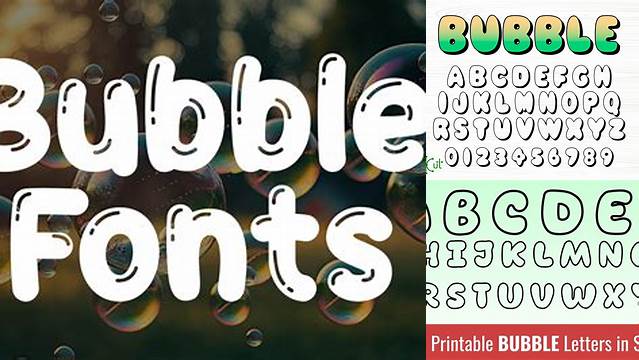
Create Stunning Bubble Letter Fonts Online
Hey everyone! Ready to dive into the super fun world of bubble letter fonts? You know, those playful, eye-catching fonts that scream fun and creativity? Whether you're a seasoned designer, a crafting enthusiast, or just someone who loves to add a little flair to their projects, you're in the right place. We're going to explore everything you need to know about bubble letter fonts, including how to create them easily using a fantastic bubble letter fonts generator. Get ready to unleash your inner artist and make your designs pop!
H2: What Exactly are Bubble Letter Fonts?
Alright, first things first: What exactly are bubble letter fonts? Think of them as letters that look like they're made of, well, bubbles! They're rounded, often thick, and always cheerful. Imagine the kind of letters you'd see on a birthday card, a playful poster, or maybe even on your favorite cartoon show. That's the vibe! These fonts are all about creating a sense of fun, approachability, and a touch of whimsy. They're super versatile and can be used in a ton of different ways. Bubble letters are perfect for kids' projects, scrapbooking, creating eye-catching logos, or even adding a playful touch to your social media posts. The defining feature of these fonts is the rounded appearance, where the letterforms are essentially composed of interconnected rounded shapes, creating the illusion of inflated bubbles. This aesthetic makes them visually engaging and highly readable, even from a distance. Because of their simple, bold nature, bubble letters are often used in designs aimed at younger audiences or those looking for a lighthearted feel. You'll commonly spot these fonts in children's books, party invitations, and promotional materials for businesses targeting families or individuals. Creating bubble letter fonts from scratch can be time-consuming, as you'd have to design each letter individually, ensuring consistency in the curves and spacing. Using a bubble letter fonts generator simplifies this process, allowing you to quickly transform text into a unique, bubbly style. The beauty of bubble fonts also lies in their adaptability. They can be customized with various colors, gradients, and effects to match your design needs. For instance, you can add shadows to give the letters a three-dimensional look or fill them with textures to add depth and character. Many designers also incorporate bubble letters into logos, headlines, and other branding elements to convey a sense of fun, friendliness, and approachability. The use of bubble letters helps to create a positive and memorable brand identity, making them a popular choice for businesses that want to connect with their audience on a personal level. Another exciting aspect of using bubble letters is the potential for creative experimentation. Try combining different styles of bubble letters with other design elements to create unique and captivating designs. Experiment with layering, blending, and other visual effects to bring your designs to life. The possibilities are endless when using a bubble letter fonts generator to get creative with typography.
H3: The History and Evolution of Bubble Letters
So, where did these awesome bubble letter fonts come from? Well, their origins are a bit less defined than, say, a specific calligraphic style, but they really popped up in the late 20th century. Think of the vibrant, energetic art and design styles that were popular in the 80s and 90s – that's the era that really embraced them! Graffiti artists were among the first to widely adopt the style, using it to create bold, eye-catching murals and tags. They provided an exciting way to make their art stand out. This was before the days of easy digital design tools. The style was then copied by others, including designers in many fields of artistic endeavor, from advertising to animation. Over time, bubble letters evolved. There are now countless variations and styles. Bubble letter fonts have been adapted and modernized. They've incorporated shadows, outlines, and textures. And now, thanks to the digital age, they're more accessible than ever, with bubble letter fonts generators making it easy for anyone to create them. Initially, artists created bubble letters by hand, meticulously drawing each letter and ensuring the rounded shapes and consistent thickness. They used various tools, such as markers, paintbrushes, and stencils, to achieve the desired effect. The meticulous nature of this process required significant artistic skill and patience. But the efforts proved worthwhile, as bubble letters quickly became a symbol of creativity and a recognizable form of art. As technology progressed, the methods of producing bubble letters gradually evolved. The introduction of digital design tools significantly sped up the process, making it easier to create and modify bubble letters. Today, designers use specialized software to create custom bubble letter fonts and add unique effects such as gradients, shadows, and outlines, significantly expanding the possibilities for artistic expression. The rise of the internet and social media further popularized bubble letters. They're now used in various applications. Social media posts, digital artwork, website designs, and even marketing campaigns benefit from the cheerful aesthetic of bubble letters. The accessibility of bubble letter fonts generators and other design tools allows anyone, regardless of their artistic background, to incorporate bubble letters into their projects.
H2: Why Use a Bubble Letter Fonts Generator?
Why bother with a bubble letter fonts generator, you ask? Well, let me tell you! Because it makes creating those cool bubble letter fonts super easy and fast! Instead of painstakingly drawing each letter by hand (which, let's be honest, can be a real time-sink), a generator does the work for you. This means you can create a design quickly without the need for any artistic expertise. The best part? You can experiment with different styles and sizes without the hassle. It's perfect for beginners and seasoned designers alike. If you are looking for a quick and easy way to create visually appealing designs, then a bubble letter fonts generator is perfect for you. They save time, offer customization options, and provide access to a wide array of font styles. This makes them an ideal tool for anyone looking to create unique and attention-grabbing visuals. Also, using a bubble letter fonts generator means you can focus on the creative aspects of your project, like choosing colors, layouts, and overall design. This tool allows you to focus on the bigger picture and ensures a consistent, professional look every time.
H3: Time-Saving Benefits
One of the biggest advantages of using a bubble letter fonts generator is the incredible time savings. Hand-drawing bubble letters can be a time-consuming process. You need to ensure each letter is perfectly rounded, consistent in thickness, and aesthetically pleasing. This can take hours, especially if you're designing an entire alphabet or a large headline. A bubble letter fonts generator does all the hard work for you in seconds! You can input your text and have it transformed into bubble letters instantly. This means more time to focus on other aspects of your design, such as layout, color palettes, and overall visual aesthetics. You can also try out different font styles, sizes, and effects without having to redraw each letter. This allows for faster iteration and more creative exploration. In addition to time savings, a bubble letter fonts generator also ensures consistency across your design. When you manually create bubble letters, slight variations in thickness, shape, or spacing can occur, affecting the overall look of your project. With a generator, all letters are automatically produced with uniform characteristics, resulting in a polished and professional appearance. This consistent look is especially important in branding materials, where uniformity is essential for establishing a recognizable visual identity. The time saved can be utilized to further refine the project, to explore different design directions, or to accommodate additional tasks. Whether you are working on a school project, a marketing campaign, or a personal crafting endeavor, a bubble letter fonts generator will accelerate your design process and help you achieve your creative goals.
H2: Features to Look for in a Bubble Letter Fonts Generator
When picking a bubble letter fonts generator, there are some key features to keep an eye out for. You want something that's easy to use, right? Look for a generator with a user-friendly interface that's simple to navigate. You should be able to type your text and see the bubble letter fonts instantly. Customization options are also important. Can you change the size, color, and style of the letters? The best generators offer a range of customization options. This means you can tailor the fonts to match your specific project needs. Also, make sure the generator allows you to download your creations in a format you can use, like PNG or SVG. That way, you can easily integrate your bubble letter fonts into your designs. Lastly, consider the quality of the output. Make sure the generated fonts look clean and professional. This helps avoid pixelated or distorted letters. Keep these factors in mind, and you'll find a bubble letter fonts generator that's perfect for you.
H3: User-Friendly Interface and Ease of Use
A top-notch bubble letter fonts generator should be incredibly easy to use, and its interface must be user-friendly. The interface should be intuitive, allowing you to quickly type in your text and instantly see it transformed into cool bubble letter fonts. The design should be clean, uncluttered, and easy to navigate. This will allow you to focus on creativity rather than struggling with complex software controls. Look for generators that provide clear instructions and visual cues to guide you through the process. The process should be straightforward: type, customize, and download. The best interfaces offer drag-and-drop functionality. Also, it must have the capability to apply different effects with a few simple clicks. A well-designed interface saves time and allows users of all skill levels to create high-quality designs. The ease of use is critical for both beginners and experienced designers. Beginners can experiment with different styles without feeling overwhelmed. Experienced designers can create stunning designs faster, integrating the bubble letter fonts into their projects. The key is to streamline the design process, making it fun and accessible. The ideal interface minimizes the learning curve, allowing you to focus on unleashing your creativity and creating stunning visuals. Check for tooltips and pop-up guides to help explain different features and customization options. A seamless and intuitive user experience is essential for enjoying the creative process.
H2: Customization Options Available
One of the coolest things about using a bubble letter fonts generator is the customization options. You want to be able to make those bubble letter fonts your own, right? Look for a generator that lets you change the font size, the thickness of the bubbles, and the colors. Some generators even let you add effects like outlines, shadows, and gradients to make your letters really pop! The more customization options, the more creative freedom you have. This will make your designs unique. Check if you can adjust the spacing between letters and words. This is crucial for achieving the desired visual balance. Also, see if you can rotate or skew the letters to add a dynamic touch. The best generators provide a wide range of features to ensure your creative vision comes to life. Customization goes beyond aesthetics. Consider the ability to download the fonts in multiple file formats like PNG, JPG, or SVG. This versatility ensures compatibility with various design software and applications. Also, explore generators that offer a preview option, allowing you to see how your customized fonts will look on different backgrounds or mock-ups.
H3: Font Style and Appearance Customization
When selecting a bubble letter fonts generator, you want flexibility over the fonts' styles and appearance. The best generators provide a wide array of customization options to make your designs unique. You should be able to adjust the thickness of the bubble letters, making them bold or delicate to suit your project's needs. The capability to change the roundness and softness of the edges of the letters is important. This allows you to refine the overall look and feel of the fonts. Customizing the outline of the letters is a great feature. Some generators allow you to add outlines of different colors or thicknesses to make the letters stand out. You can experiment with shadows, adding depth and dimension to your fonts. Customizing the letters' appearance ensures they match your design aesthetic. This allows you to create fonts that perfectly align with your brand. Look for generators that offer color customization options, allowing you to change the color of the letters, outlines, and shadows. This will enable you to create visually cohesive designs. Font style and appearance customization features are essential for creating unique and effective designs. This makes the bubble letter fonts a perfect fit for your projects.
H2: Tips for Using Bubble Letter Fonts Effectively
Alright, now you've got your bubble letter fonts ready to go! But how do you use them effectively? First, consider the context. Bubble letter fonts are great for fun, informal projects, but maybe not so much for a serious business proposal. Next, think about readability. Make sure your fonts are large enough and easy to read, especially if you're using them in a headline or title. Also, use color wisely. Choose colors that complement each other and that fit your project's overall theme. Don't go overboard! Too much color or too many effects can make your fonts look messy. Keep it simple and balanced. Also, consider the size of your text. Bubble letter fonts can be a bit bulky, so they might not work well for long blocks of text. Use them for headings, titles, or short phrases. Finally, experiment! Try different combinations of colors, sizes, and effects. Play around until you find the perfect look for your project.
H3: Best Practices for Readability and Design
To ensure the effectiveness of your designs, here are some best practices for bubble letter fonts. Readability is key. Make sure the font size is appropriate for the context. Choose a size that is easily readable from a distance. The height of the letters is essential. Avoid making the letters too tall or too short, as this can affect their readability. Spacing between letters and words must also be considered. Ensuring the letters are not crowded together is important, as it will prevent confusion. Line spacing is essential when using bubble letters in multiple lines. The spacing should be wide enough to prevent the lines from blending together. The color contrast is also vital. Ensure a high contrast between the font and the background. This prevents readability problems. You can achieve this by using contrasting colors. Avoid colors with similar values. Font choice is essential. Choose a font that is clear and easy to understand. Bubble letters come in various styles. Make sure the style complements your design. The design must consider the overall layout. Use bubble letters strategically. Avoid using them for extensive text. Headings and titles are ideal for these fonts. Avoid overusing bubble letters. Too many elements will make your design cluttered. By following these best practices, you can ensure that your bubble letters will be effective, readable, and aesthetically pleasing.
H2: Where to Use Bubble Letter Fonts
So, where can you actually use these fun bubble letter fonts? The possibilities are pretty much endless! They're perfect for kids' birthday invitations, school projects, and party decorations. Think of posters, flyers, or even banners for your kids' room! Bubble letter fonts work great for social media graphics, like Instagram posts and stories, where you want to grab attention. You can also use them in scrapbooking, creating personalized cards, or designing fun logos. Really, anywhere you want to inject some personality and playfulness, bubble letter fonts are a great choice. They're also really popular for creating custom t-shirts, mugs, or other personalized gifts. The versatility makes them perfect for both personal projects and professional designs.
H3: Applications in Personal and Professional Projects
Bubble letter fonts are versatile and useful. They are suitable for personal and professional projects. For personal use, consider creating custom birthday cards, invitations, and personalized gifts. Bubble letters add a fun and playful touch to any celebration. You can also use them to create eye-catching scrapbooks. These fonts enhance the visual appeal of your memories. For professional projects, these fonts can be valuable for branding and marketing materials. You can use bubble letter fonts to create logos, website banners, social media graphics, and promotional flyers. Bubble letters can communicate a sense of friendliness, approachability, and creativity, which is ideal for brands aiming to connect with younger audiences or those with a playful identity. You can use these fonts to design educational resources. These materials can grab the attention of students and make learning more engaging. Whether creating presentations or designing posters, bubble letters can make educational content more visually appealing. Using the bubble letter fonts can help you achieve your desired goals. You can also consider these fonts when creating social media content. They are perfect for creating posts and stories that stand out. They enhance brand visibility and engagement. Whether you're designing a marketing campaign or planning a personal project, these fonts are a great choice.
H2: Popular Bubble Letter Font Generators and Tools
Alright, let's get down to the good stuff! There are tons of great bubble letter fonts generators out there, but here are a few popular choices: [Insert some actual tools and websites here]. These generators often have user-friendly interfaces, a wide variety of customization options, and allow you to download your creations in various formats. It's worth checking out a few different ones to see which you prefer! Don't forget to look for generators that offer features like text effects, outlines, and shadow options to help you create unique and eye-catching designs. You can also find a range of free and paid options. Some generators may offer a wider range of features and customization options, while others may be simpler and more straightforward. Before selecting a tool, it is important to consider your specific needs and preferences.
H3: Overview of Top Online Generators
There are many online bubble letter fonts generators available. Each one provides various features. To get you started, here's an overview of some top online generators: [Provide brief overviews and key features of several generators, including their strengths and weaknesses, and what makes each one stand out]. Consider ease of use, customization options, download formats, and user reviews when selecting a generator. Look at user reviews and ratings. This will help you assess the quality of the output. When comparing generators, think about the available customization options. Check if the generator offers text effects, outlines, and shadow options. The quality of the generated fonts is crucial. Choose a generator that produces clean and professional-looking fonts. Also, check if the generator lets you download your creations in the format you need. Some offer PNG, JPG, or SVG options. Some tools offer advanced features and extensive customization capabilities. You can use these tools to fine-tune your designs. By exploring these generators, you will discover the perfect tool. The perfect tool will fit your needs and help you create stunning designs. Whether you're a beginner or an experienced designer, these generators offer many resources to bring your creative visions to life.
H2: Getting Creative with Bubble Letter Fonts: Design Ideas
Ready to get those creative juices flowing? Here are some design ideas to get you started with bubble letter fonts. Create a birthday invitation! Design a fun poster for your kids' room! Make a custom t-shirt with a catchy phrase! Use them for social media posts. You can also experiment with combining them with other design elements, like illustrations or backgrounds. Don't be afraid to try something new! You can play with different color combinations, layer the fonts, or add shadows to create a 3D effect. You can use textures or gradients to add visual interest. The only limit is your imagination. Don't be afraid to experiment and have fun! With a bubble letter fonts generator, your creative possibilities are endless.
H3: Innovative Design Techniques and Combinations
Want to take your designs to the next level with bubble letter fonts? Here are some innovative design techniques and combinations: Combine different styles of bubble letters. Mix thick, bold fonts with more delicate, thin ones to create contrast. Add a touch of playfulness and visual interest. Incorporate other fonts to complement your bubble letter fonts. Consider using a simple sans-serif font for supporting text to ensure readability. Experiment with layering techniques. Place your bubble letter fonts over images, textures, or solid color backgrounds. This creates depth and visual complexity. Use drop shadows and outlines. These elements will help your bubble letters pop and stand out. Apply gradients and textures. Add a sense of depth and dimension. Experiment with blending modes. Blend your bubble letters with backgrounds or other design elements. The blend mode gives unique effects and visual interest. Combine bubble letters with illustrations and graphics. This will help you create visually rich designs. Consider using icons, illustrations, and other graphic elements to enhance your message. You can create a unique and engaging visual experience by experimenting with these techniques. This lets you create designs that stand out and capture attention.
H2: Troubleshooting Common Issues with Bubble Letter Fonts
Running into any snags while using your bubble letter fonts? Don't worry, it happens! One common issue is readability. If your fonts are too small, or the colors don't contrast well, they can be hard to read. Another issue is distorted fonts. Some generators might not produce the best results. Always double-check the quality of your fonts before using them. If you're having trouble with the generator itself, check the user manual or online tutorials. Sometimes, there might be a glitch, or you might need to clear your cache and cookies. Troubleshooting can save you time and frustration. If you're still having problems, reach out to the generator's customer support. They are usually happy to help. When using a bubble letter fonts generator, keep the following tips in mind to prevent problems.
H3: Resolving Readability and Quality Issues
Encountering readability and quality issues when working with bubble letter fonts? Don't worry! Here's how to solve them: For readability, make sure the font size is appropriate for the context. Use a size that is easy to read from a distance. The contrast between the font and the background is essential. This prevents readability problems. Ensure a high contrast by using contrasting colors. Avoid colors with similar values. To address quality issues, check the generated font files. Make sure the fonts look clean and professional. Sometimes, fonts can appear pixelated or distorted. Ensure you have a good internet connection to prevent disruptions during the generating process. Check the format of your downloaded files. The format can affect the quality and appearance of your bubble letter fonts. By following these tips, you can ensure that your fonts are readable and of high quality.
H2: Bubble Letter Fonts and Copyright: What You Need to Know
Alright, before you go wild creating, it's super important to understand copyright. Most bubble letter fonts are either free for personal use or require a license for commercial use. Always check the license agreement before using a font in a commercial project. Make sure you understand the terms of use. This will prevent any legal issues. Some fonts are completely free to use, while others may require you to purchase a license or give credit to the designer. Check the website or platform where you found the generator. They usually have clear information about the font's usage rights. If you're unsure, it's always best to err on the side of caution and seek clarification or legal advice. This is a good way to avoid copyright infringements. This will help you use the fonts legally. Respecting the rights of font designers is essential. Protect yourself from potential legal issues. This is crucial, especially for businesses and creators who use fonts in their products or services. Always check the licensing terms. It is important for both personal and commercial use.
H3: Understanding Licensing and Usage Rights
Understanding the licensing and usage rights of bubble letter fonts is essential. Bubble letters are protected by copyright. Always review the license agreement of any bubble letter fonts generator or font before using it. This agreement will explain how the fonts can be used. Always check the font's intended use. Some fonts are free for personal use but require a license for commercial projects. Others may be free or require you to give credit to the designer. The terms of each license vary. Some licenses might restrict the types of projects where the font can be used. For instance, some may prohibit use in logos or other branding materials. Other licenses may limit the number of uses or the duration of use. Reading the license agreement carefully is critical. Make sure you understand all terms before using the font. If you're unsure about the license terms, seek clarification from the font designer or the provider. This will help you avoid potential copyright issues. Respecting these rights helps protect the work of font designers.
H2: Designing for Different Platforms with Bubble Letter Fonts
When you're using bubble letter fonts, think about where your design will be seen. For social media, keep the text large and legible, because people are often scrolling on their phones. Use colors that pop and grab attention, and make sure your design is eye-catching, even when it's small. For print projects like posters or flyers, you have more flexibility with size and detail. But still, ensure your fonts are easy to read from a distance. Different platforms have different requirements. You can adapt your designs to suit each platform. This ensures your message is clear and visually appealing. Using the right approach maximizes the impact of your bubble letter fonts on different platforms. This helps to engage your audience.
H3: Optimizing Bubble Letter Fonts for Social Media and Print
When using bubble letter fonts, it's important to optimize your designs for different platforms. Social media and print projects have different requirements. For Social Media, ensure the text is large and legible, as people often view content on their phones. The contrast must also be strong to capture attention. Use colors that pop, and ensure your design is eye-catching. Use clear, high-resolution images. The design needs to be clear, even when viewed on a small screen. For Print Projects, you have more flexibility. The size and detail are less of a concern. Still, ensure the font is readable from a distance. Choose high-resolution images. High-quality images will maintain their clarity and detail. Ensure the design is visually appealing. Different platforms have different requirements. To ensure your bubble letter fonts are effective, you must adapt your designs to suit each platform. This ensures your message is clear and visually appealing. Following these tips helps you create designs that perform well across various platforms.
H2: The Future of Bubble Letter Fonts and Design Trends
What's next for bubble letter fonts? Well, they're not going anywhere anytime soon! Expect to see them evolve and adapt to new design trends. We might see even more creative variations, with new styles, textures, and effects. As technology advances, expect the generators to get more sophisticated. They will provide more customization options. They will also make them even easier to use. The future of design is all about creativity. You should experiment with new ideas. These trends are sure to change the world of bubble letter fonts. With the rise of digital art and design, expect to see many more innovative uses. This can happen as designers continue to push the boundaries of what's possible. Keep an eye out for new technologies. They will help in generating creative designs with bubble letter fonts.
H3: Predicting the Evolution of Bubble Letter Styles
Predicting the future evolution of bubble letter styles involves analyzing current design trends. Also, technological advancements. Expect continuous innovation. Designers will be inspired to explore new variations of this iconic font style. The blending of traditional and digital design methods is likely to influence the future of bubble letter fonts. Expect to see styles that integrate handmade elements. The style includes textures, brushstrokes, and imperfections. These textures will add warmth and personality. They also make designs more attractive. As technology advances, bubble letter fonts are becoming more interactive. You will see more dynamic designs that respond to user interactions. Generative design techniques may become more prominent, allowing designers to create bubble letters automatically. This will give you unique and personalized designs. The growing emphasis on accessibility will also influence the evolution of bubble letter fonts. Designers will focus on creating readable and inclusive designs. This ensures that the bubble letters are accessible to everyone. The evolution of bubble letter fonts is driven by creativity. Designers will keep testing boundaries. The designs will be innovative, functional, and beautiful.
H2: Conclusion: Unleash Your Creativity with Bubble Letter Fonts
So, there you have it! You're now armed with the knowledge and tools to create stunning bubble letter fonts for your next project. Remember, have fun, experiment, and don't be afraid to get creative. The bubble letter fonts generator is your friend. It's a super useful tool. And now, go forth and create! Unleash your inner artist and let those bubbly letters shine!